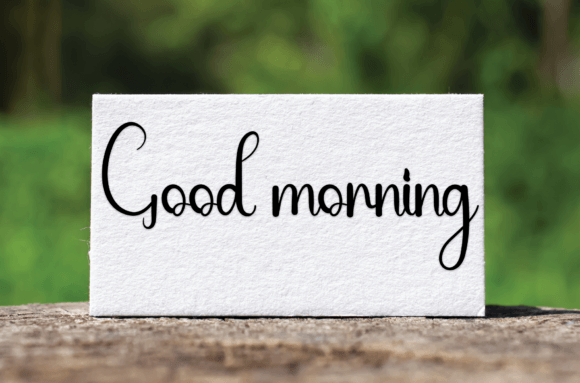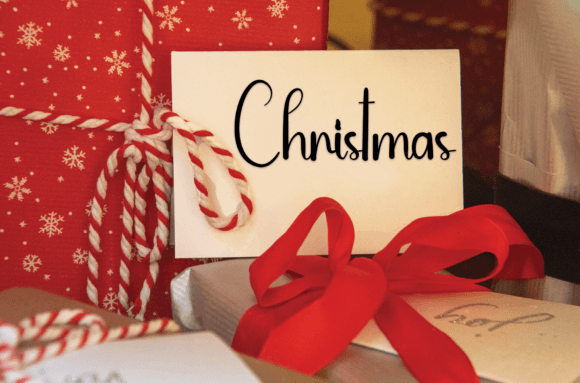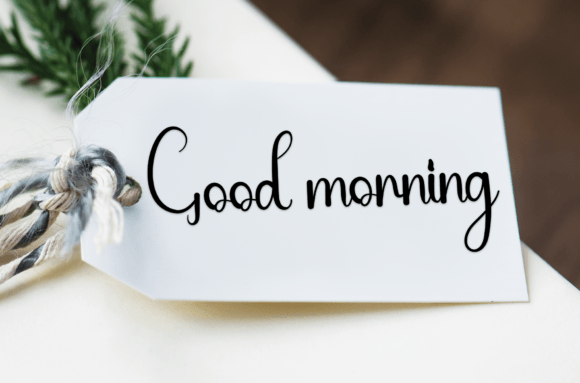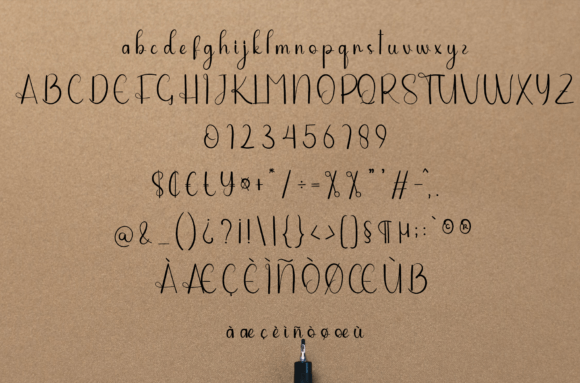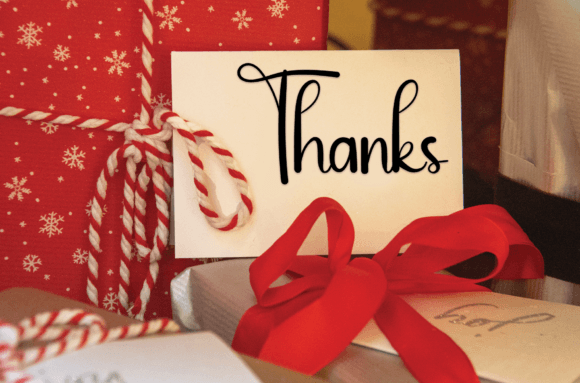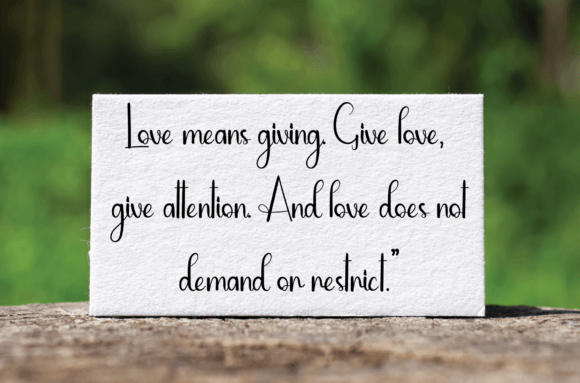
William Smitson Font
About William Smitson Font
William Smitson Font is a sweet and friendly handwritten typeface designed to add warmth and charm to your creative projects. Its fun and relaxed style makes it perfect for designs that require a personal, lovely touch. Whether you are creating wedding invitations, greeting cards, or personalized stationery, William Smitson adds a genuine handcrafted feel that connects emotionally with your audience.
Ideal for Special Occasions and Personal Projects
William Smitson’s casual and approachable style makes it especially suitable for special occasions such as weddings, birthdays, and anniversaries. Its flowing strokes and soft curves evoke feelings of joy and intimacy, making every design feel heartfelt and unique.
In addition, this font works well for everyday creative projects like scrapbooking, journaling, social media graphics, and branding for small businesses focused on handmade or artisanal products.
Why Choose William Smitson Font?
William Smitson stands out due to its:
• Friendly, rounded letterforms that feel warm and inviting
• Balanced design ensuring great readability even at smaller sizes
• Versatility across print and digital media
These features make William Smitson suitable for both professional designers and hobbyists alike.
Add Warmth and Personality to Your Projects
Typography plays a crucial role in setting the tone of your message. William Smitson’s handwritten style adds warmth and personality that enhance emotional connections. It makes your wedding invitations heartfelt, your cards more touching, and your branding feel authentic.
With William Smitson, your designs will stand out by communicating sincerity and friendliness.
Use William Smitson Font Across Various Applications
This font adapts beautifully across various design contexts, including:
• Wedding invitations and save-the-date cards
• Branding for boutique and handmade products
• Social media posts and inspirational quotes
• Product packaging and labels
• Personalized gifts and craft projects
Its casual elegance ensures it fits both playful and refined themes seamlessly.
To conclude, William Smitson Font is a delightful handwritten script that combines friendliness, fun, and elegance. It’s perfect for adding a lovely and personal touch to a variety of creative projects. Whether for weddings, special events, or everyday design needs, William Smitson helps you communicate with warmth and style.